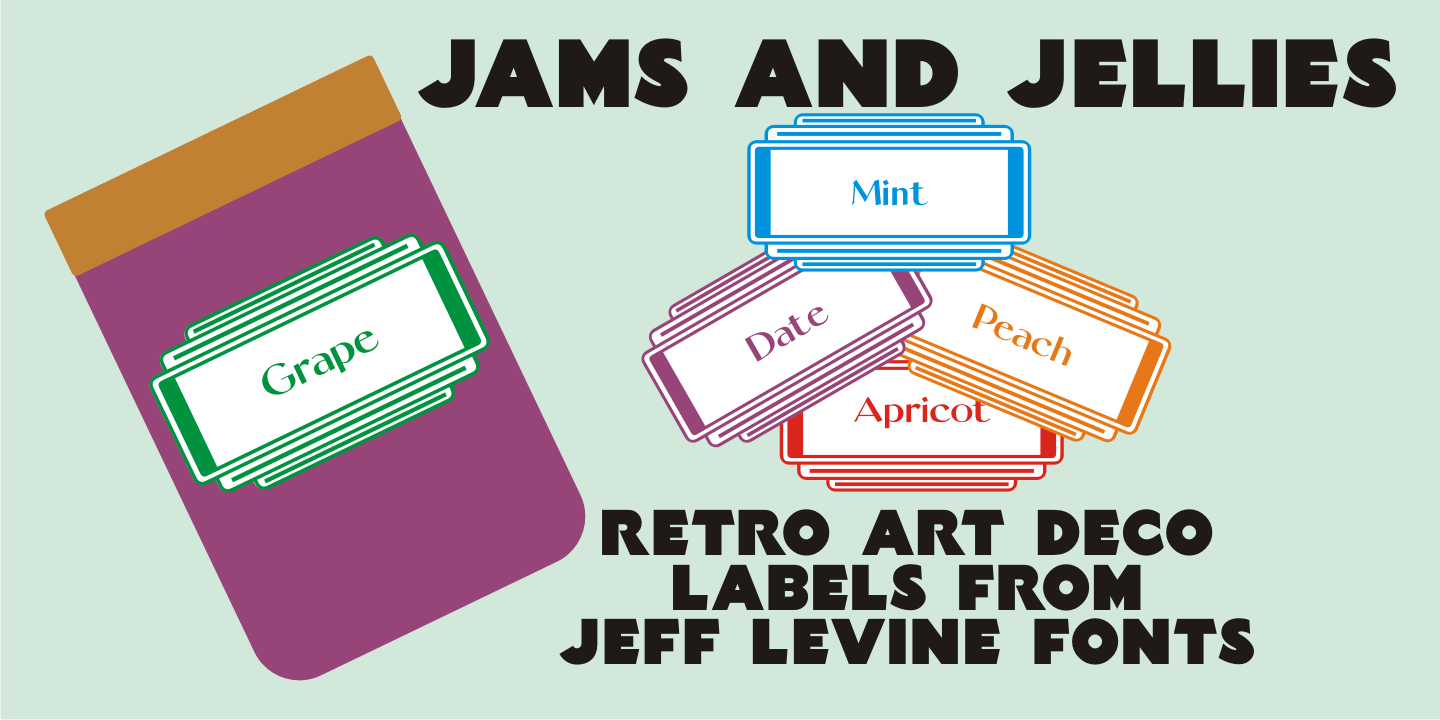
Jams and Jellies
Based on a vintage set of kitchen labels, Jams and Jellies JNL is a font containing 52 of the most common names for jams, jellies and preserves as well as a blank label for creating your own flavor choices.